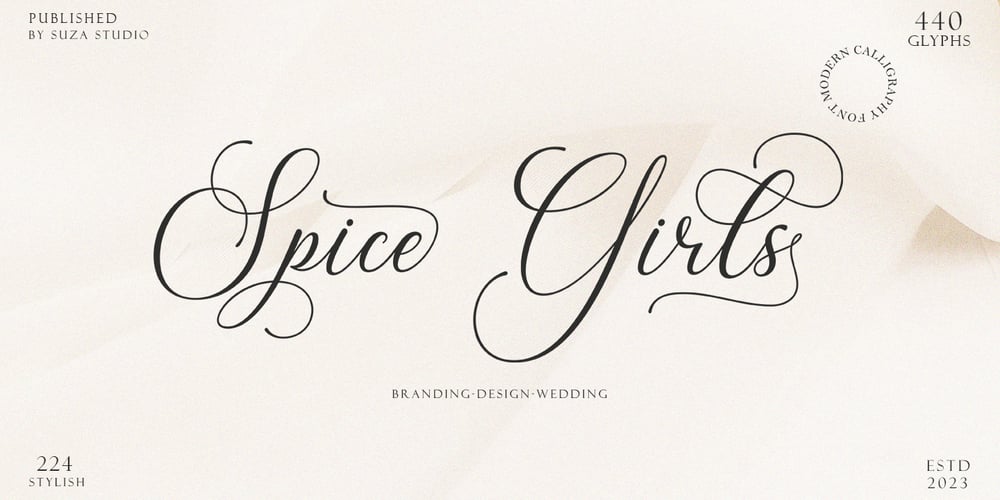
Spice Girls Font Family was designed by Zikrillah and published by Suza Studio. Spice Girls contains 1 styles and family package options. Spice Girls is an elegant & modern Calligraphy Look typeface that stands out. Spice Girls is best suited for creating logotypes, branding, headlines, fashion, romantic novels, corporate identity and marketing materials for the web & as well as any minimal designs. Please see the included demographics to get an idea of what this typeface is capable of when used for branding and marketing material design.